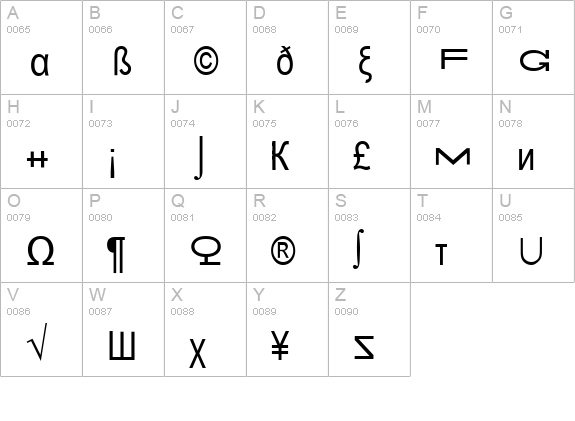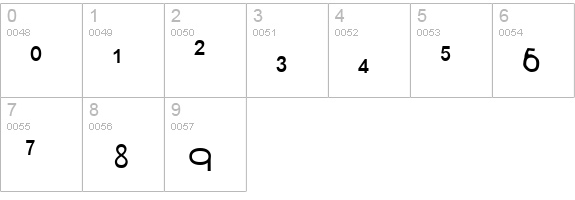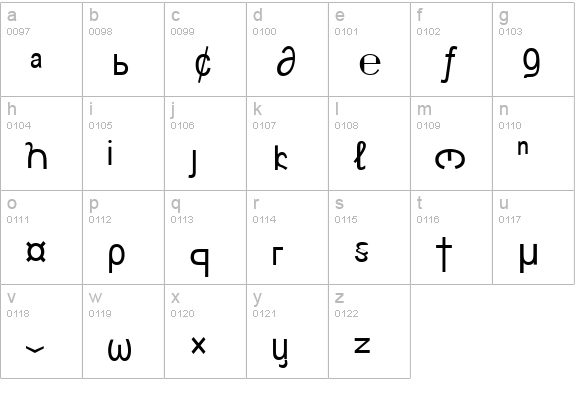
Bungle City Font Details
Introducing Bungle City font, a playful and whimsical typeface that exudes charm and character. With its quirky design and unique personality, Bungle City is perfect for adding a touch of fun to your projects. This versatile font is ideal for a wide range of creative applications, from branding and advertising to invitations and social media graphics. Bungle City is freely available to download at FontsMarket.com, making it accessible to all designers and creators looking to infuse their work with a touch of creativity. Whether you're designing a logo for a vibrant brand or crafting eye-catching posters for an event, Bungle City is sure to make your text stand out. With its bold and energetic style, Bungle City is sure to capture attention and leave a lasting impression. Download this free font today and unleash your creativity with Bungle City!